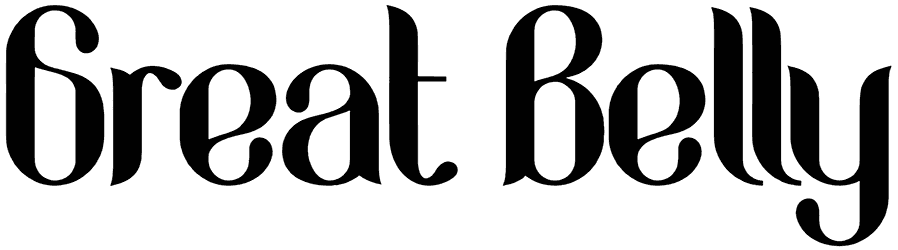
Great Belly Font
If your design needs a beautiful and humble letterform and you are searching for this style, we offer the Great Belly font to you. This spa font has an appealing and modern form that could give a unique style to your layout. You have its A-Z characters, which means this elegant font is a great pick for many projects, like a romance novel book cover.